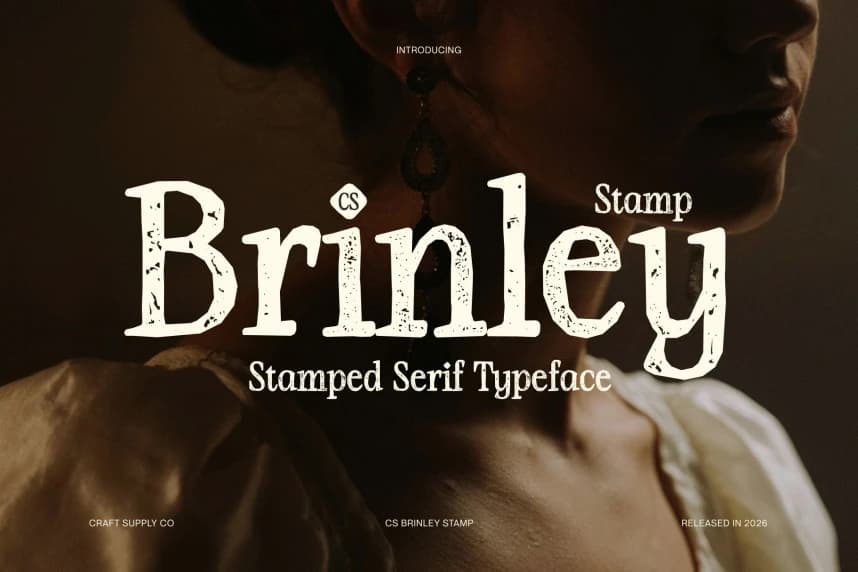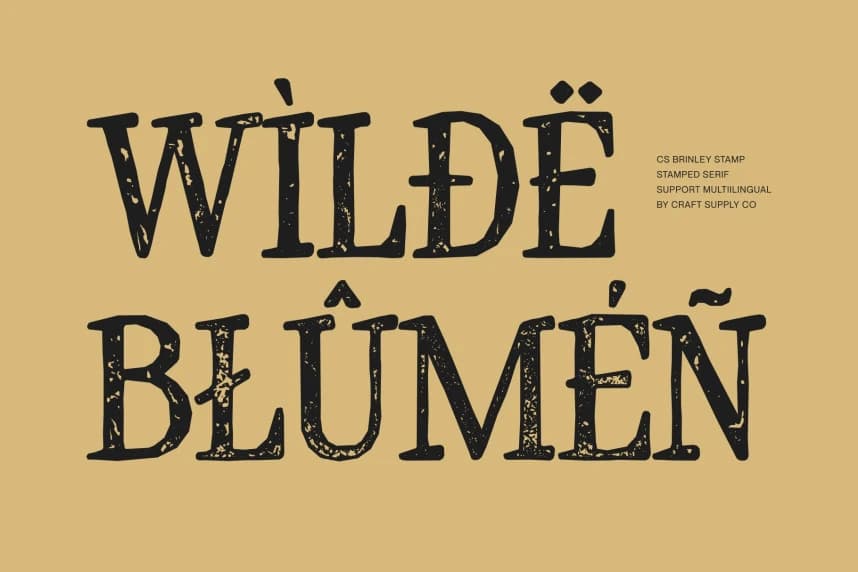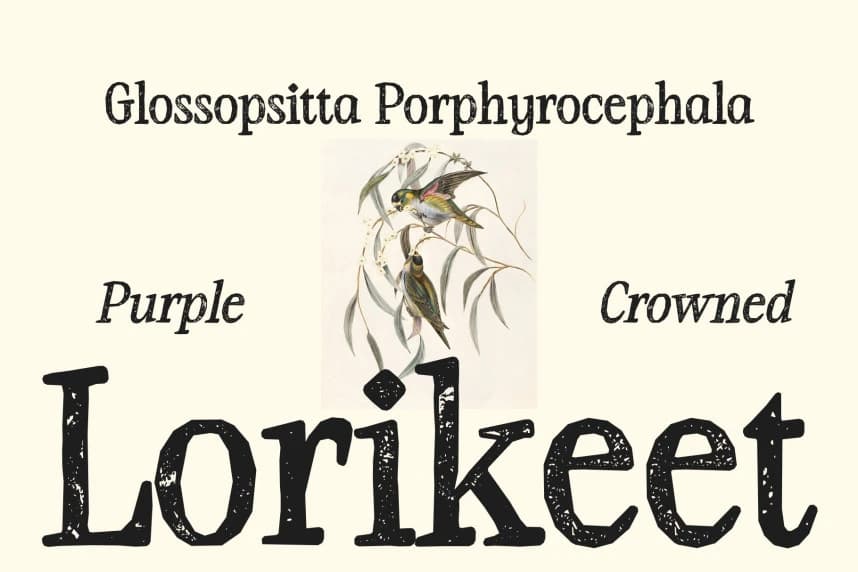
CS Brinley Stamp Font
CS Brinley Stamp Font – Timeless Serif with Textured Elegance Refined Elegance with a Modern Touch. This is a modern serif font that seamlessly blends classic sophistication with contemporary precision.